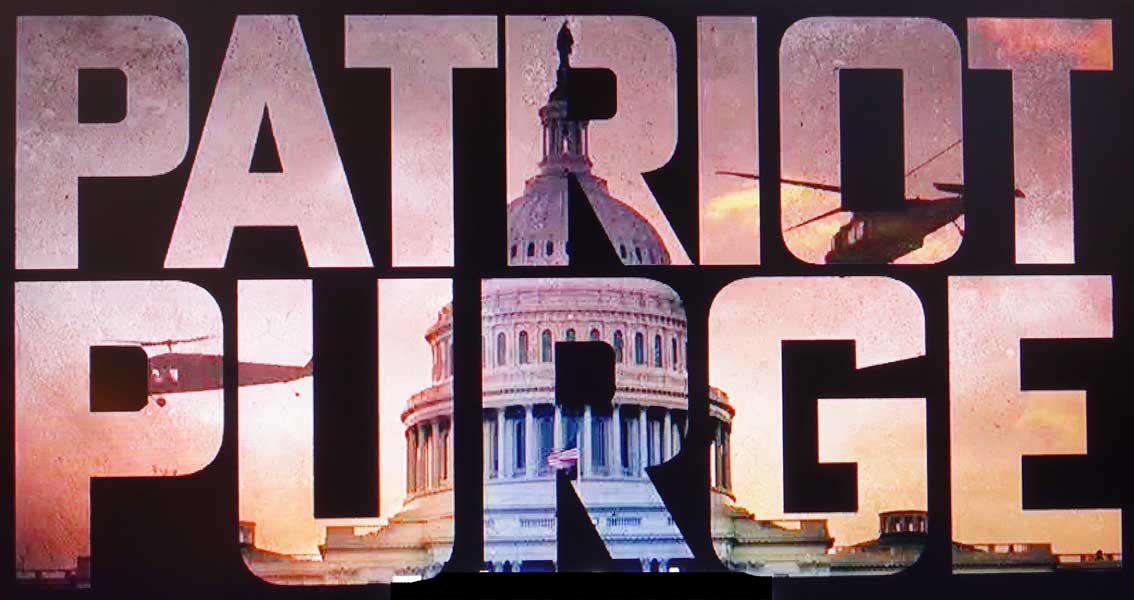
heavy boxy sans serif seen on ad for TV series
TV series is called "Tucker Carlson Originals." This show has not yet aired.
Hello, I believe this is ATF Poster Gothic in the Condensed Heavy weight...